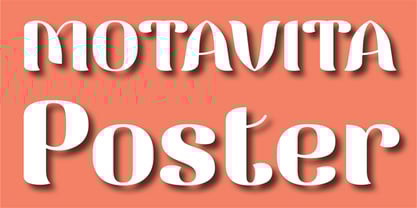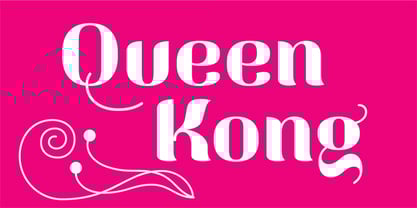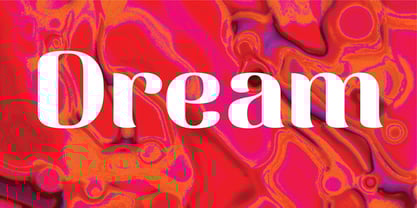
Motavita Poster
Die Schriftfamilie Motavita Poster wurde von Santiago Silva, Manuel Leonardo Méndez entworfen und von Muykyta veröffentlicht. Motavita Poster enthält 1 Stile. Mehr über diese Familie
A font for those who wish to develop projects of large format or get very highlighted titles. Motavita poster is a font that always look good when using very large. We recommend that you not use smaller 60 points. The great contrast between the steams and vertical strokes gives a strong and elegant character. Motavita was originally created for the realization of the Sàvát Studies logo and is now presented in this release.